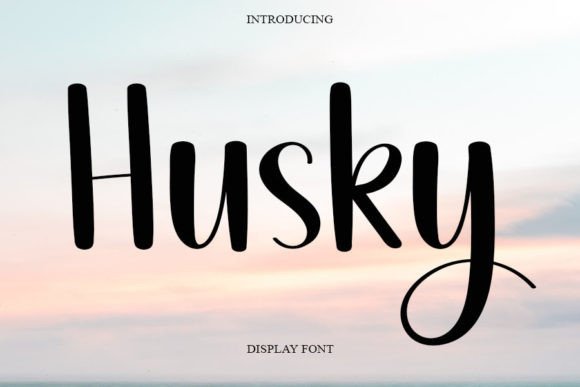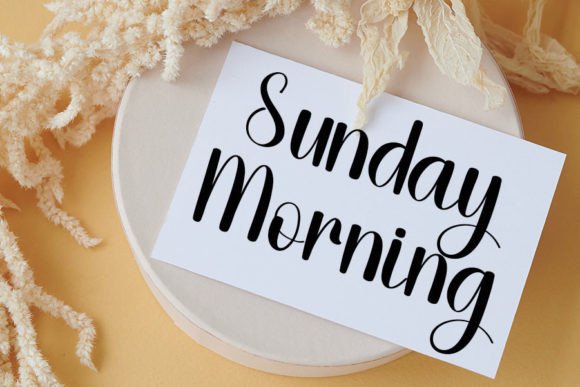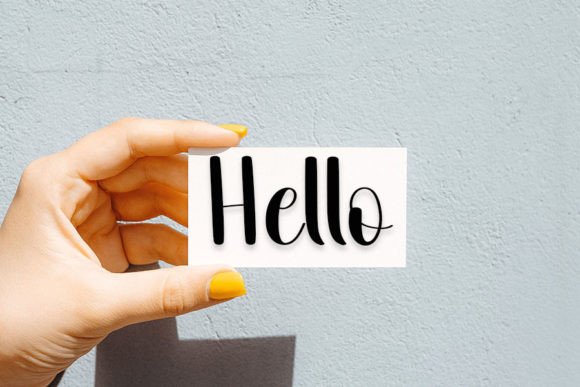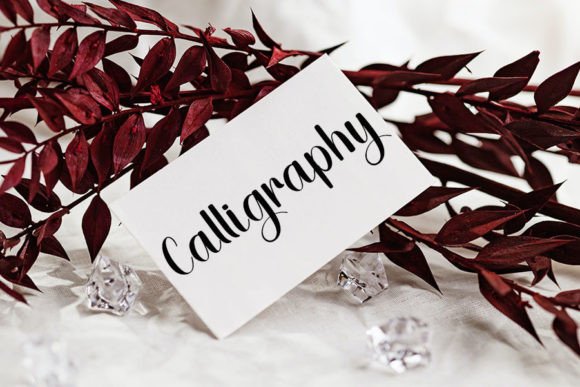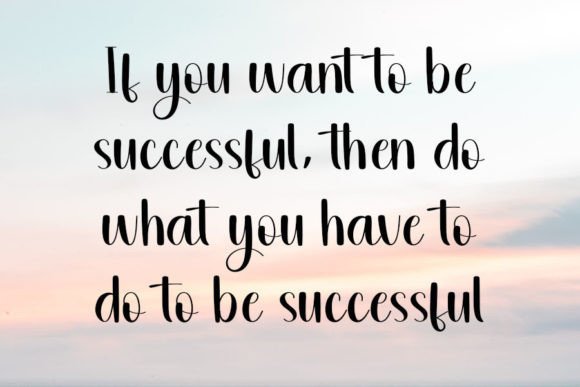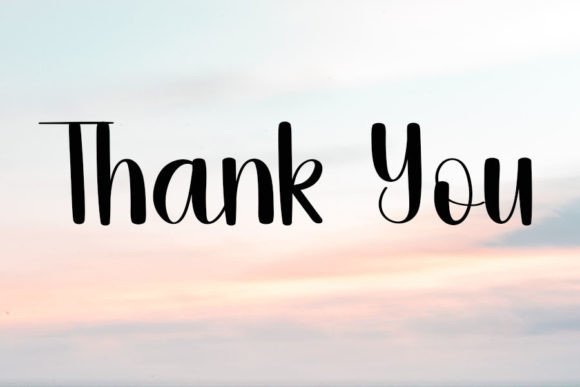
Husky Font
About Husky Font
Husky Font is a simple handwritten script that combines friendliness with timeless charm. With smooth curves and approachable strokes, this typeface adds warmth and originality to personal and professional projects. Because of its versatile design, Husky Font is perfect for crafts, greeting cards, invitations, logos, posters, and branding.
A Simple Handwritten Typeface with Friendly Appeal
Handwritten fonts bring personality to design, and Husky Font highlights this beautifully. Its casual strokes ensure readability while its neat rhythm adds style. Moreover, its approachable character adapts seamlessly to both modern and classic layouts. As a result, this typeface is a reliable choice for designers who want elegance with simplicity.
For stationery and personal projects, Husky Font is an excellent choice. For example, it can transform a wedding invitation into a keepsake filled with warmth. In addition, it works beautifully for thank-you notes, birthday greetings, and seasonal cards. Because of its friendly design, every project feels heartfelt, stylish, and memorable.
A Script Typeface for Logos and Branding
Brands and creatives looking for an approachable typeface can rely on Husky Font. It adds personality and originality to logos, product labels, and packaging. Furthermore, on social media, it helps posts, stories, and promotional banners stand out with charm. When paired with minimalist sans serif typefaces, Husky Font strikes harmony between professionalism and creativity.
Another advantage of Husky Font is its adaptability across mediums. In print, it works wonderfully on posters, magazines, brochures, and merchandise. Digitally, it enhances websites, blogs, and presentations with authenticity. Since it maintains clarity across both small and large sizes, this handwritten script is practical for a wide variety of uses.